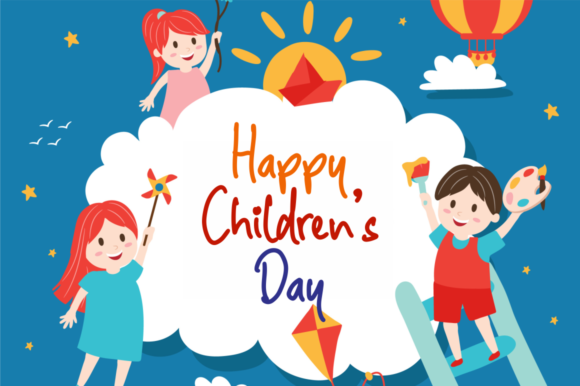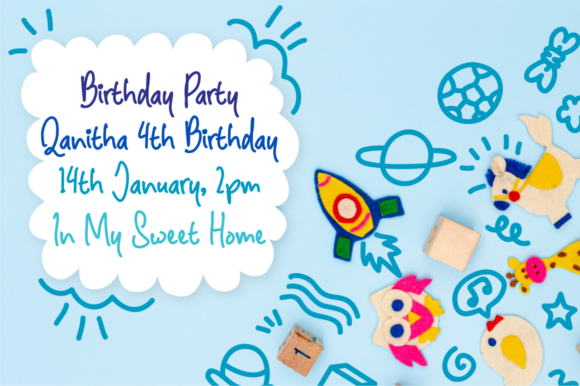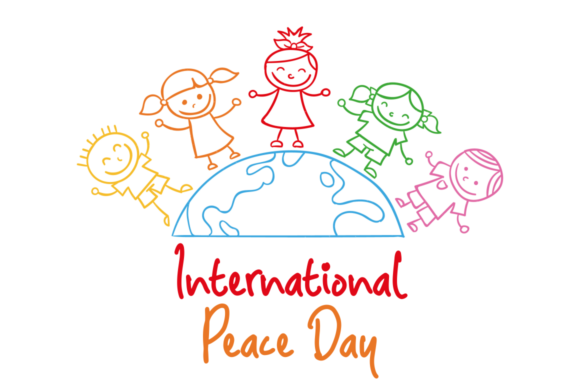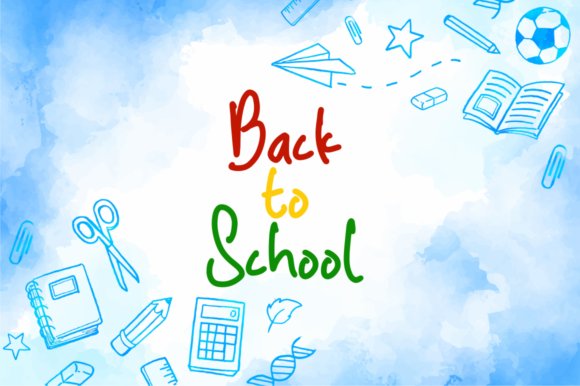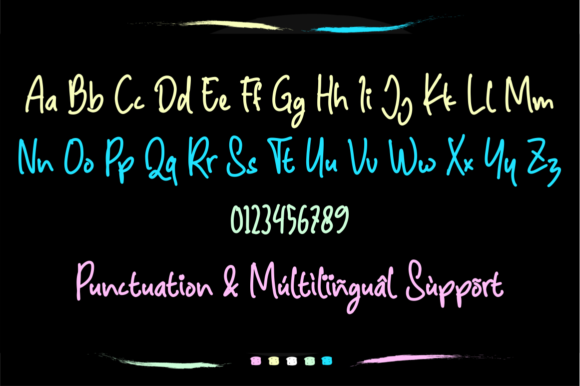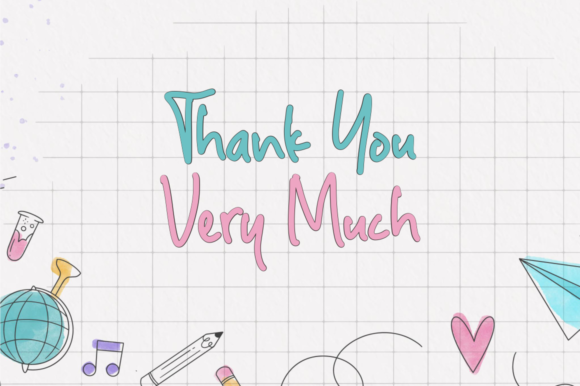
Toddler Font
About Toddler Font
Toddler is an enchanting and delightful handwritten font that radiates a playful and vibrant energy. With its cute and colorful appearance, this font is the perfect choice for infusing your designs with a sense of joy and innocence. Whether you’re creating children’s books, nursery art, party invitations, or any project that needs a cheerful and whimsical touch, Toddler is sure to captivate hearts and bring smiles to faces.
The cheerful and lighthearted nature of Toddler makes it an ideal companion for children’s designs. Its hand-drawn style and friendly letterforms create an inviting atmosphere that appeals to the imaginations of little ones. Whether used for educational materials, interactive games, or picture books, this font effortlessly captures the attention of young minds, encouraging them to explore and learn.
In the realm of nursery art, Toddler shines as a star. Its colorful and playful characters brighten up any space, turning a child’s room into a magical and imaginative haven. From cute animals to whimsical doodles, this font allows you to bring charming illustrations to life, sparking wonder and curiosity in the hearts of the little dreamers.
For party invitations and greeting cards, Toddler adds a dose of excitement and celebration. The font’s joyful energy sets the tone for a fun-filled event, whether it’s a birthday party, a baby shower, or any other cheerful gathering. With Toddler, every invitation becomes a keepsake to treasure and remember fondly.
Incorporating Toddler into digital media and social media posts infuses your online presence with a touch of childlike wonder. From animated GIFs to eye-catching graphics, this font brings a sense of playfulness to your content, leaving a positive and memorable impression on your audience.
For branding and logos targeting children or family-oriented businesses, Toddler exudes a sense of warmth and friendliness that connects with parents and little ones alike. Its vibrant colors and charming characters create a brand identity that resonates with the target audience, fostering a sense of trust and familiarity.
In conclusion, Toddler is a cute and colorful handwritten font that breathes life and joy into your designs. Its playful and inviting nature adds a touch of magic to children’s projects, nursery art, party invitations, and more. Embrace the youthful spirit of Toddler as you infuse your creative ideas with an incredibly joyful touch, making them stand out and leaving a lasting impression on those who encounter them. Let Toddler be your go-to font for capturing the hearts of both young and young-at-heart audiences.